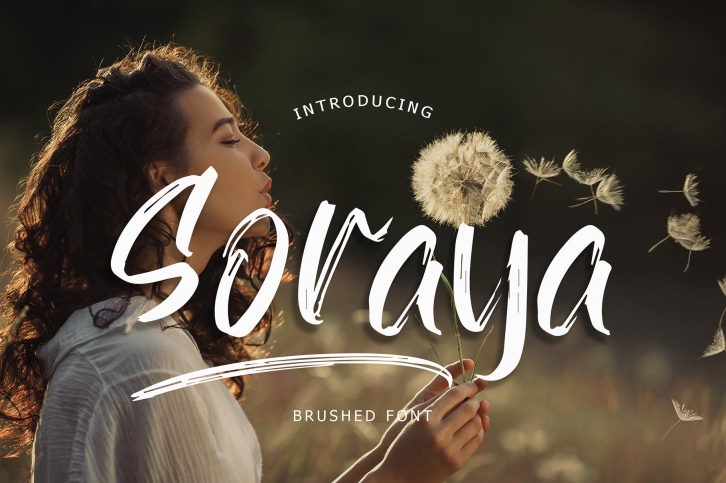
Soraya Brush is a beautiful font that was designed by Formatika Studio. It's a great choice for designers and creatives who need such a font. It was released on August 28, 2020 and the file size is 13.81 MB. Soraya Brush may give a more youthful, expressive and casual look to your project. It is a very beautiful, refined, elegant, and high-quality font.